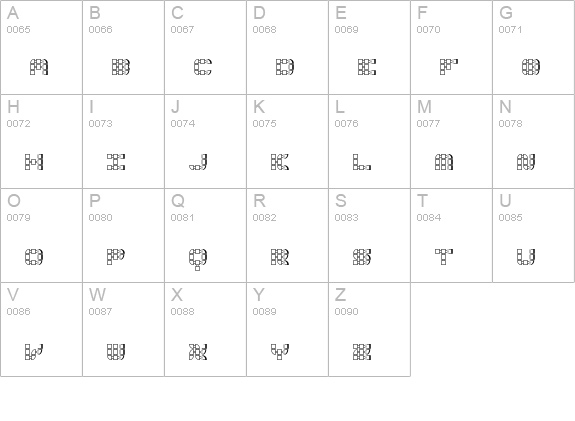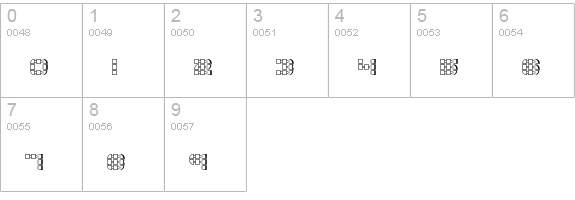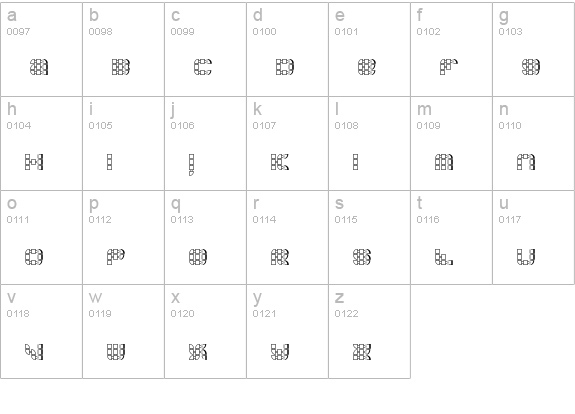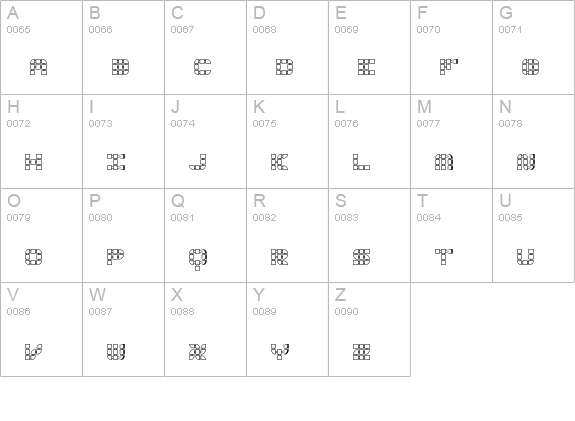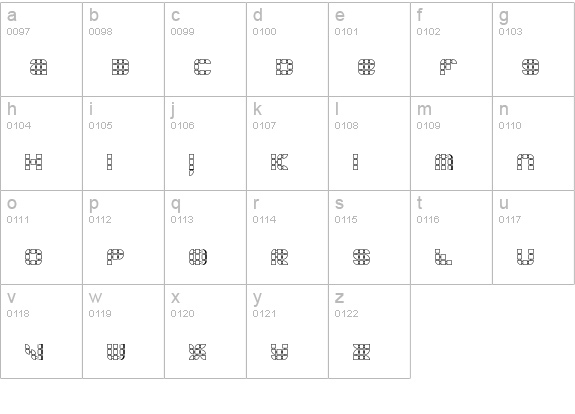
Konector O1 -BRK- is a modern and sleek font that exudes sophistication and innovation. With its unique design and stylish curves, this typeface is perfect for making a bold statement in branding, advertising, and digital design projects. The sharp edges and clean lines of Konector O1 -BRK- give it a futuristic and tech-savvy look, making it ideal for projects that require a contemporary touch. The best part about Konector O1 -BRK- is that it is available for free download at FontsMarket.com. This means you can easily access this high-quality font without any cost, making it a valuable addition to your font collection. Whether you're working on a professional design project or simply looking to enhance your creative work, Konector O1 -BRK- offers a versatile and eye-catching option that will elevate your designs to the next level. Download Konector O1 -BRK- today and unleash your creativity with this stunning font.